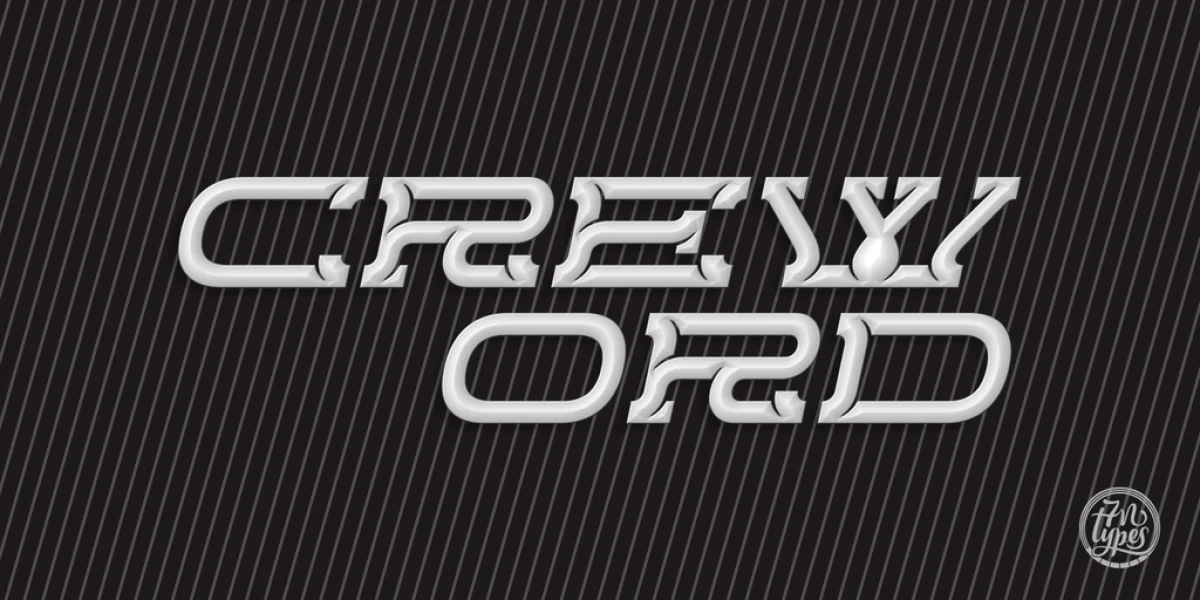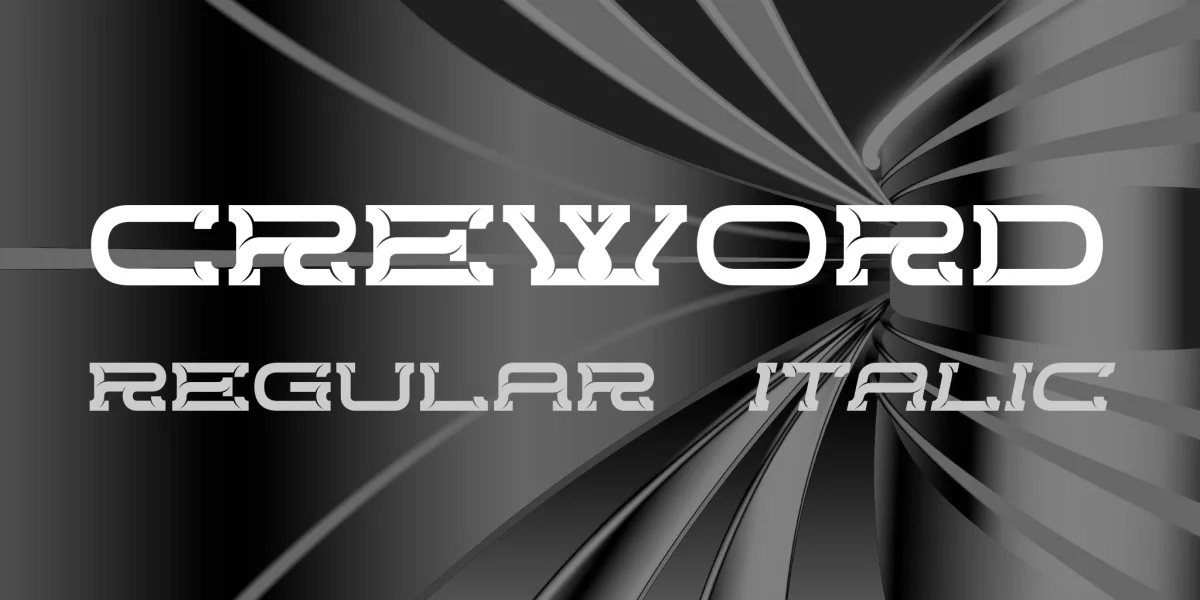
Creword is a unique modern display font, designed by Situjuh Nazara. It’s an expressive font that is very suitable for branding. Its rough exterior goes very well with themes such as engineering, mechanics and automotive.